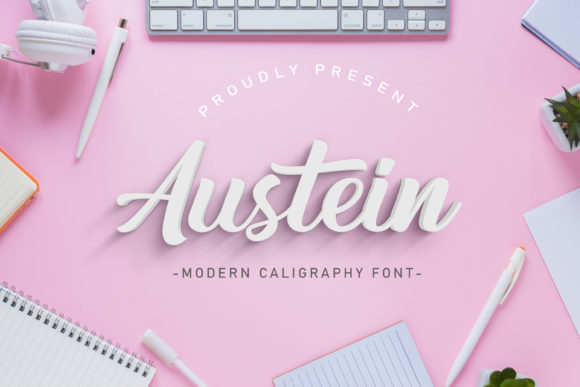
Austein Font: The Perfect Blend of Elegance and Versatility
Austein Font is a stunning script font that has been meticulously crafted to capture the hearts of designers and crafters alike. Its unique blend of casual charm and elegance makes it an ideal choice for a wide range of design projects. In this article, we’ll delve into the world of Austein Font, exploring its features, benefits, and uses, as well as provide tips on how to make the most of this beautiful font.
The Story Behind Austein Font
Austein Font is a beautiful script font that has been carefully handcrafted to become a true favorite among designers and crafters. Its creator aimed to design a font that would exude a sense of casual charm, making it appear wonderfully down-to-earth, readable, and incredibly versatile. The result is a font that is both elegant and approachable, perfect for a variety of design projects.
Key Features of Austein Font
Austein Font boasts a range of features that make it an excellent choice for designers and crafters. Some of its key features include:
- Handcrafted with love: Austein Font is a carefully handcrafted font, ensuring that every letter and curve is meticulously designed to perfection.
- Casual charm: The font’s casual charm makes it appear wonderfully down-to-earth and approachable, perfect for designs that require a personal touch.
- Readability: Austein Font is designed to be highly readable, making it ideal for body text, headings, and titles.
- Versatility: The font’s versatility makes it suitable for a wide range of design projects, from wedding invitations to branding and packaging.
Benefits of Using Austein Font
Austein Font offers a range of benefits to designers and crafters, including:
- Unique and distinctive: Austein Font is a unique and distinctive font that can help your designs stand out from the crowd.
- Elegant and sophisticated: The font’s elegant and sophisticated design makes it perfect for high-end designs, such as luxury branding and wedding invitations.
- Easy to read: Austein Font is highly readable, making it ideal for body text and other long-form content.
- Flexible: The font’s versatility makes it suitable for a wide range of design projects, from digital designs to print materials.
Uses of Austein Font
Austein Font is a versatile font that can be used in a variety of design projects, including:
- Wedding invitations: The font’s elegant and sophisticated design makes it perfect for wedding invitations, save-the-dates, and other wedding-related designs.
- Branding and packaging: Austein Font is ideal for branding and packaging designs that require a unique and distinctive touch.
- Digital designs: The font is suitable for digital designs, such as website headers, social media graphics, and email newsletters.
- Print materials: Austein Font can be used in a variety of print materials, including brochures, flyers, and business cards.
Tips for Using Austein Font
To make the most of Austein Font, here are some tips to keep in mind:
- Pair with contrasting fonts: Pair Austein Font with contrasting fonts to create visual interest and hierarchy in your designs.
- Use for headlines and titles: The font’s elegant and sophisticated design makes it perfect for headlines and titles.
- Experiment with colors: Austein Font looks great in a variety of colors, so don’t be afraid to experiment and find the perfect hue for your design.
- Pay attention to spacing: Make sure to pay attention to spacing and kerning to ensure that your text is readable and visually appealing.
Austein Font is a beautiful script font that offers a unique blend of elegance and versatility. Its casual charm, readability, and flexibility make it an ideal choice for a wide range of design projects. Whether you’re a designer or crafter, Austein Font is sure to become a true favorite in your collection. So why not give it a try and see how it can elevate your designs?